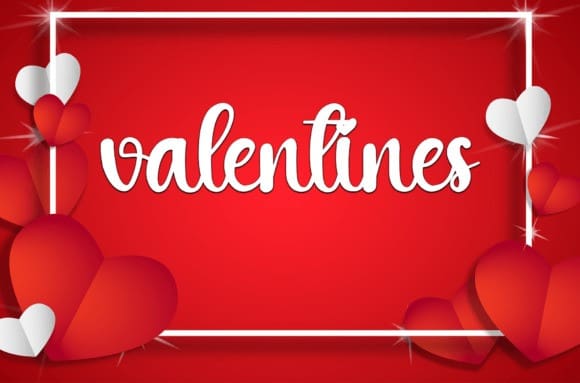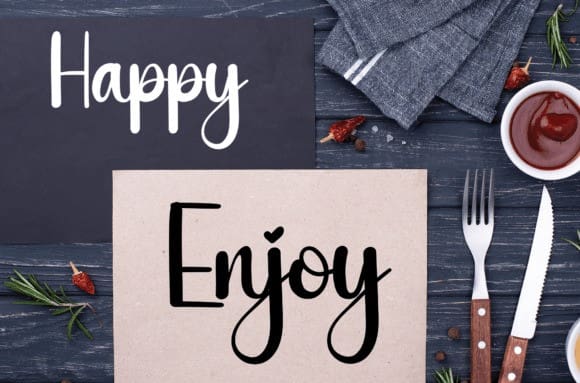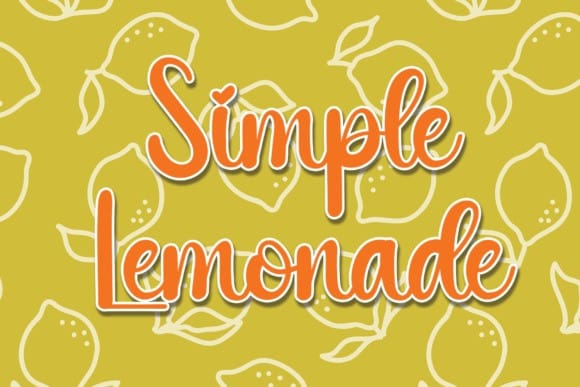
Simple Lemonade Font
Simple Lemonade Font is a sweet and friendly handwritten font. Fun and relaxed, this font is ideal for writing wedding invitations, cards, or any other design that might need a joyful touch!